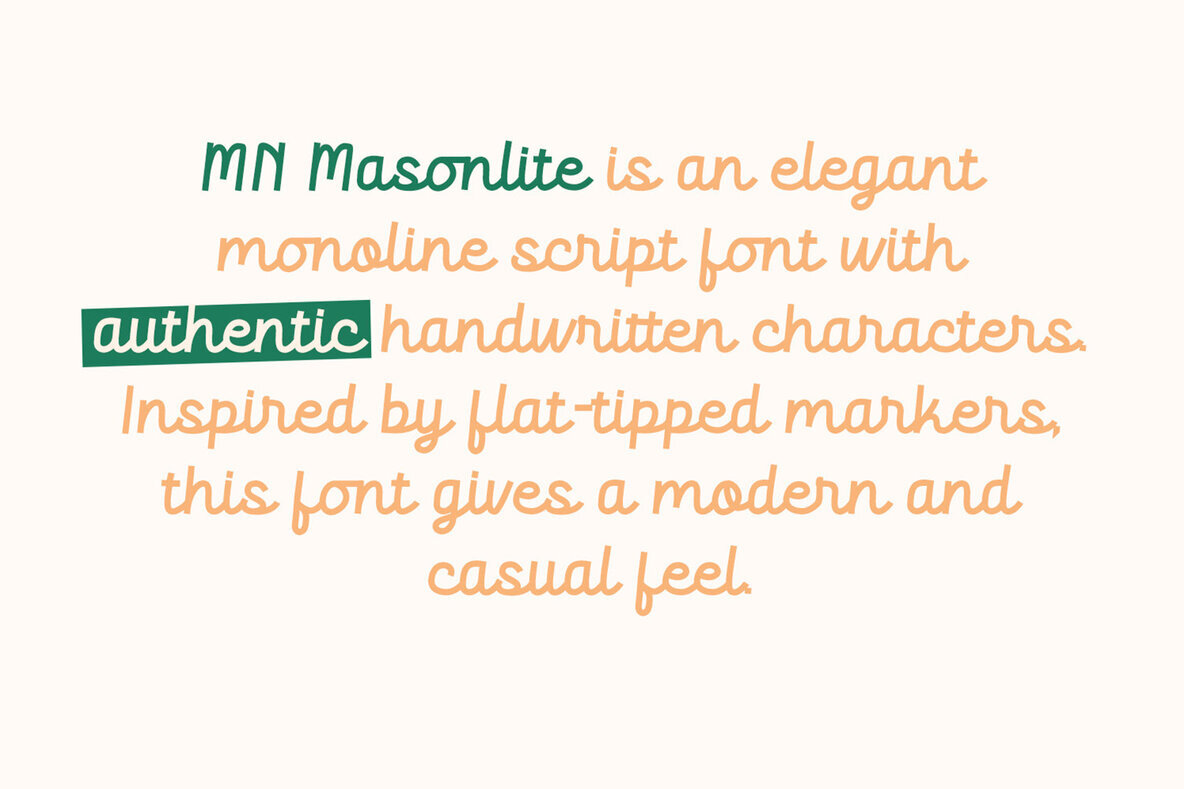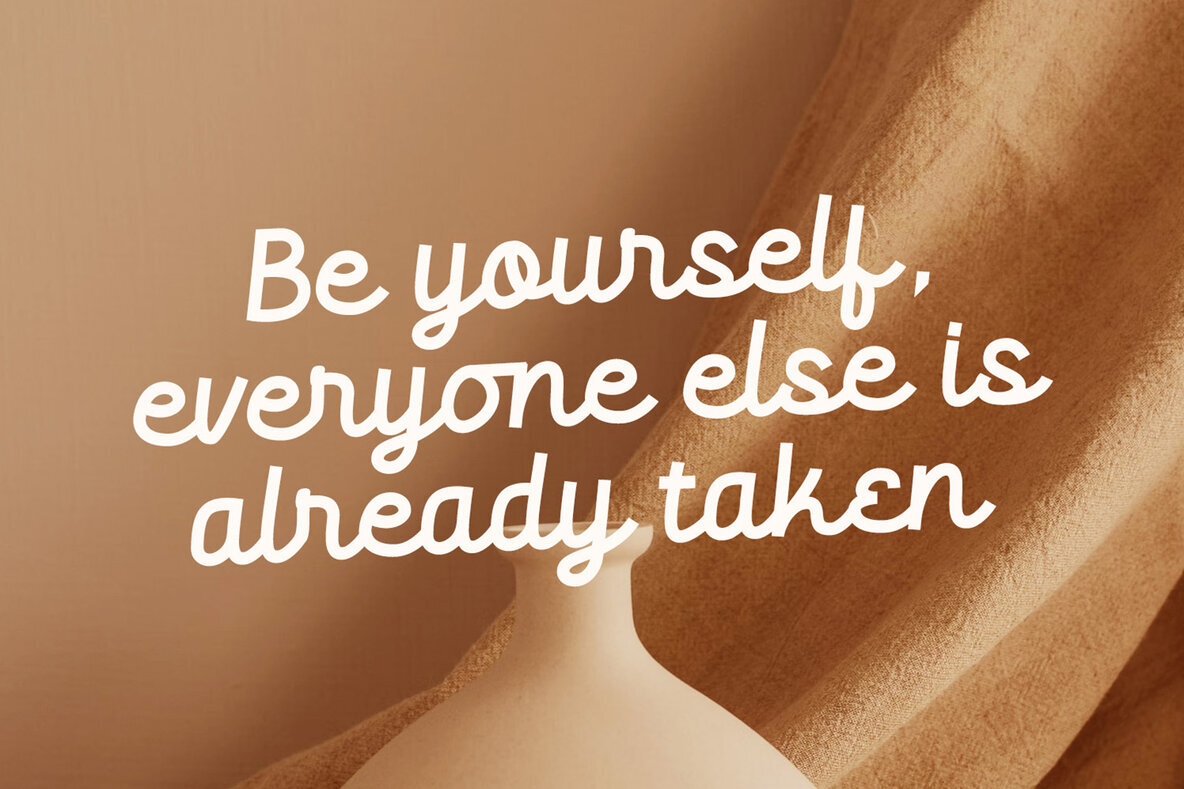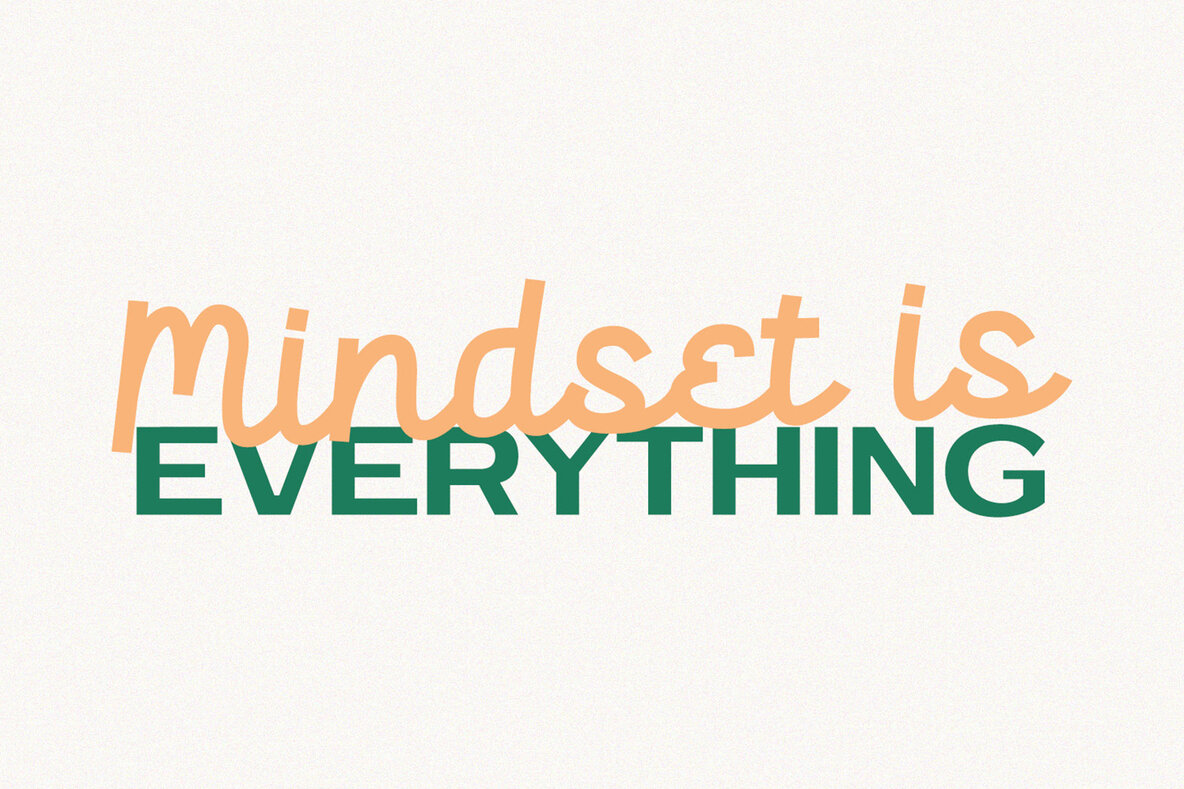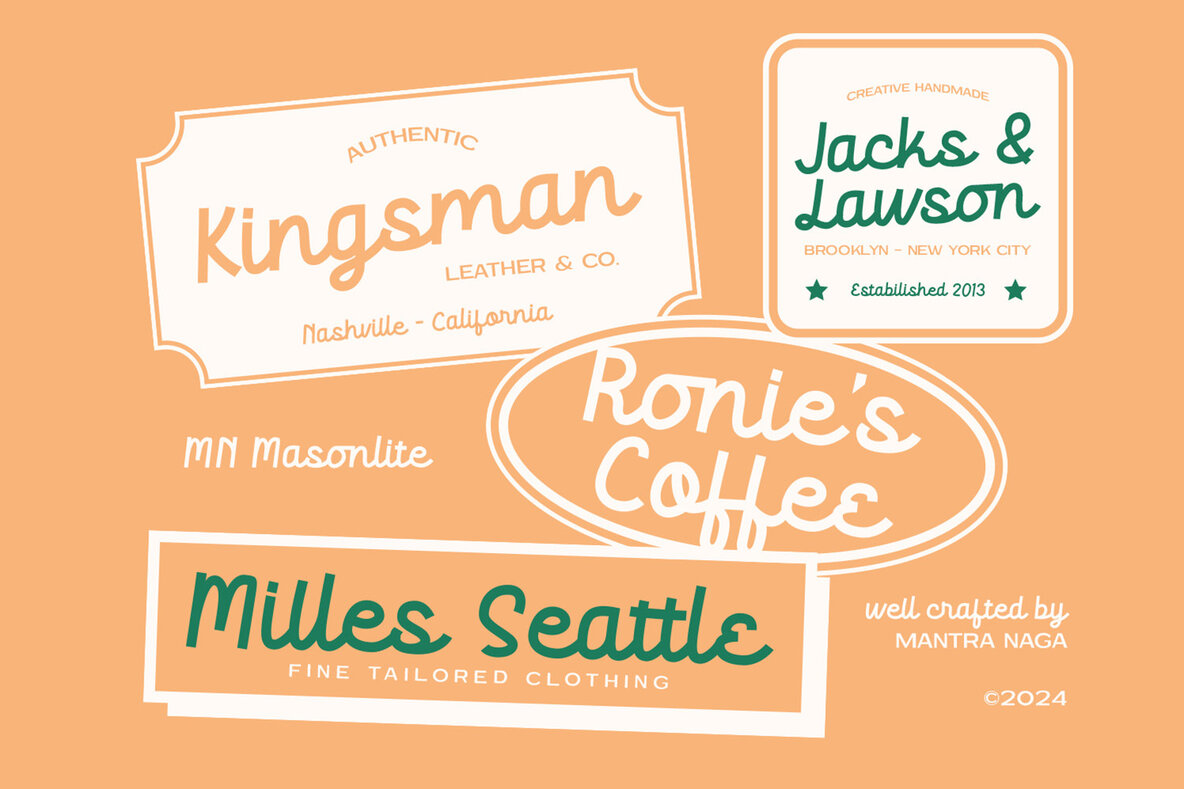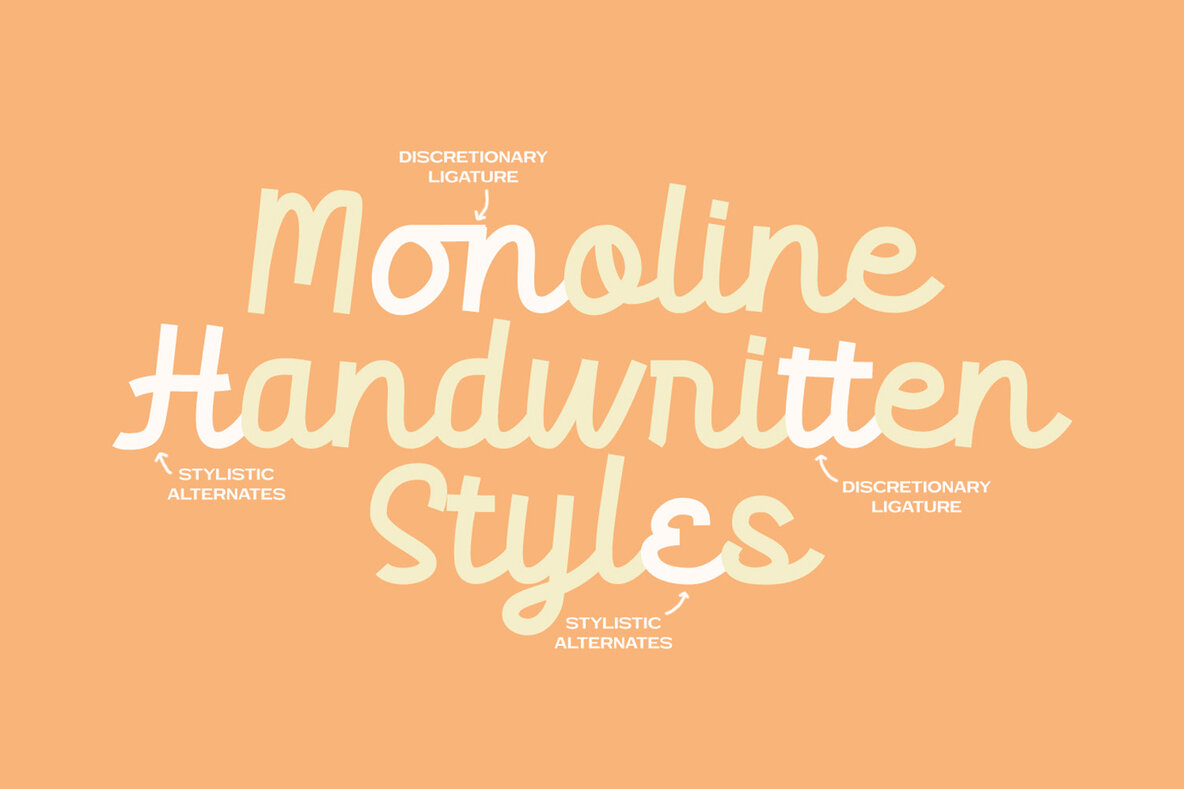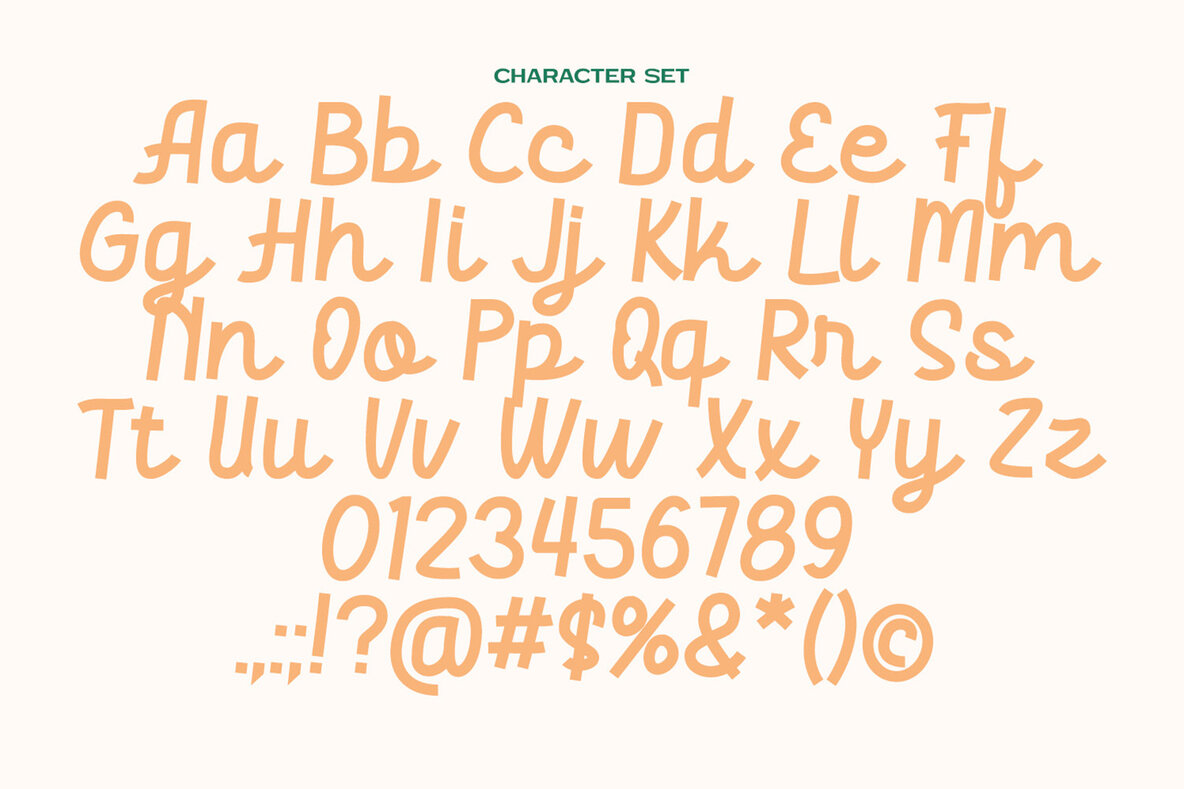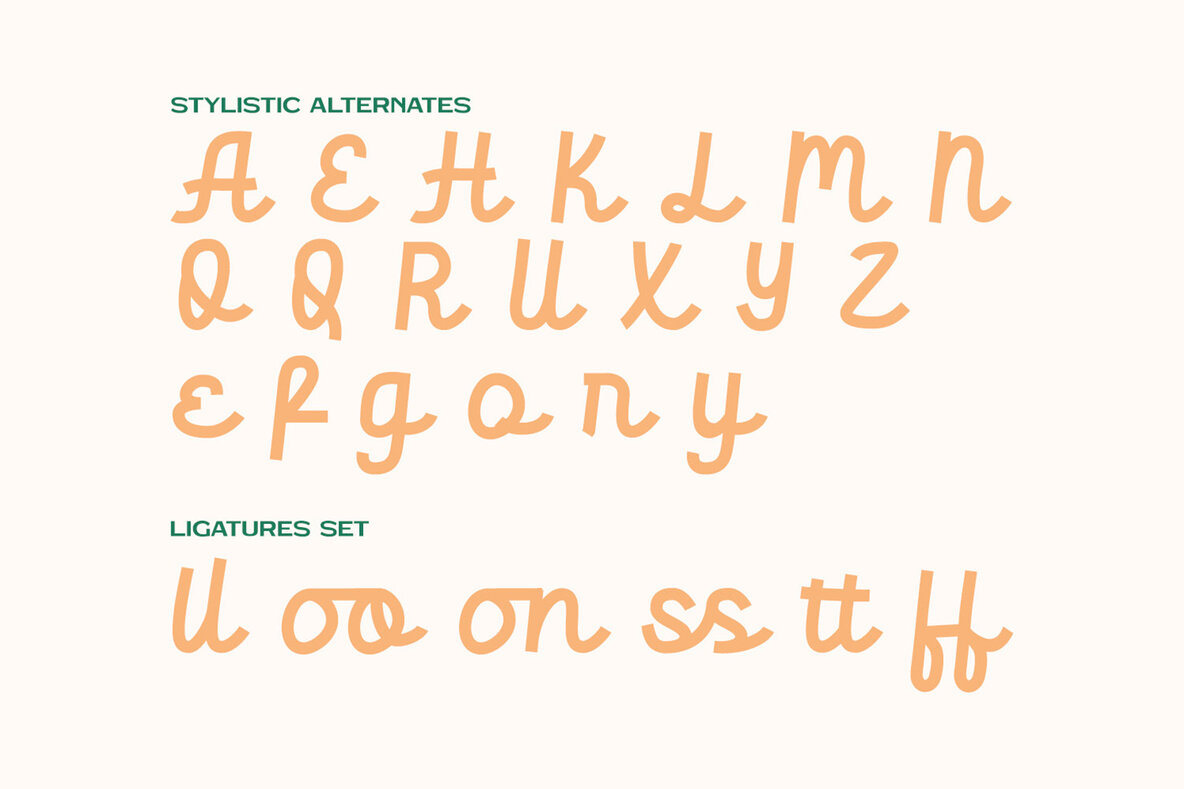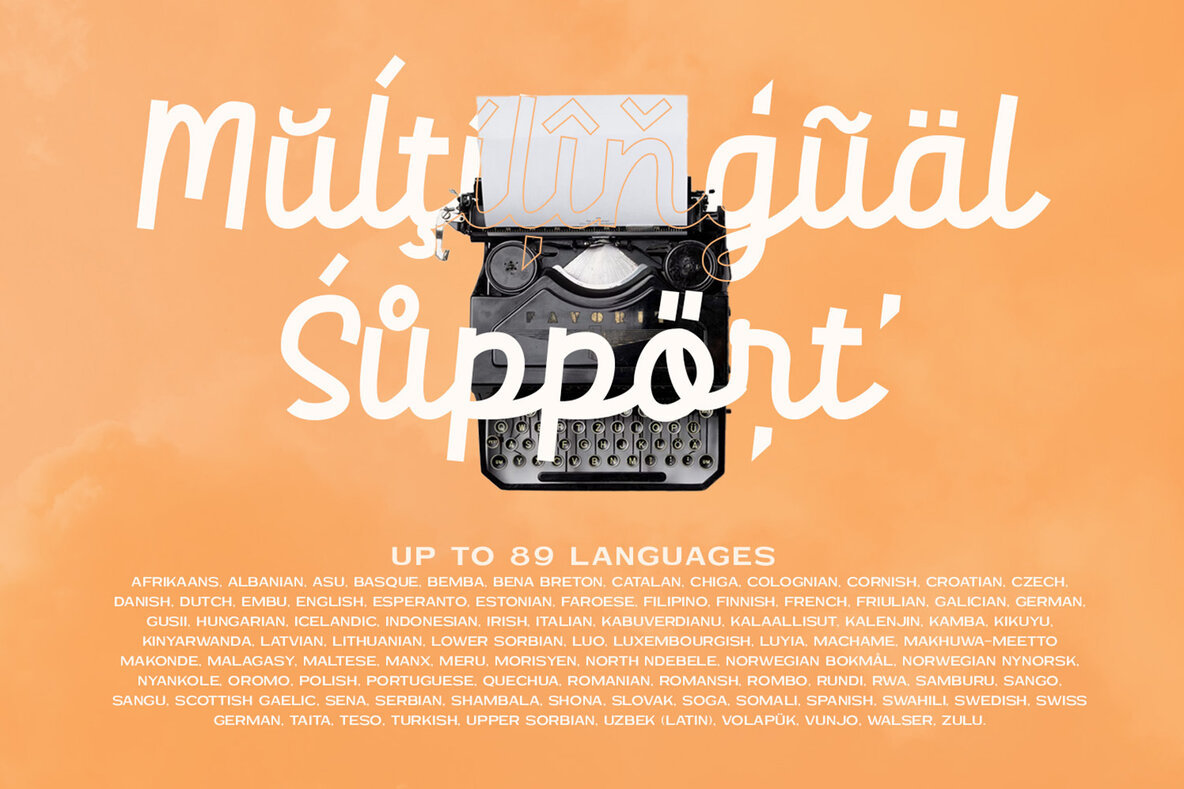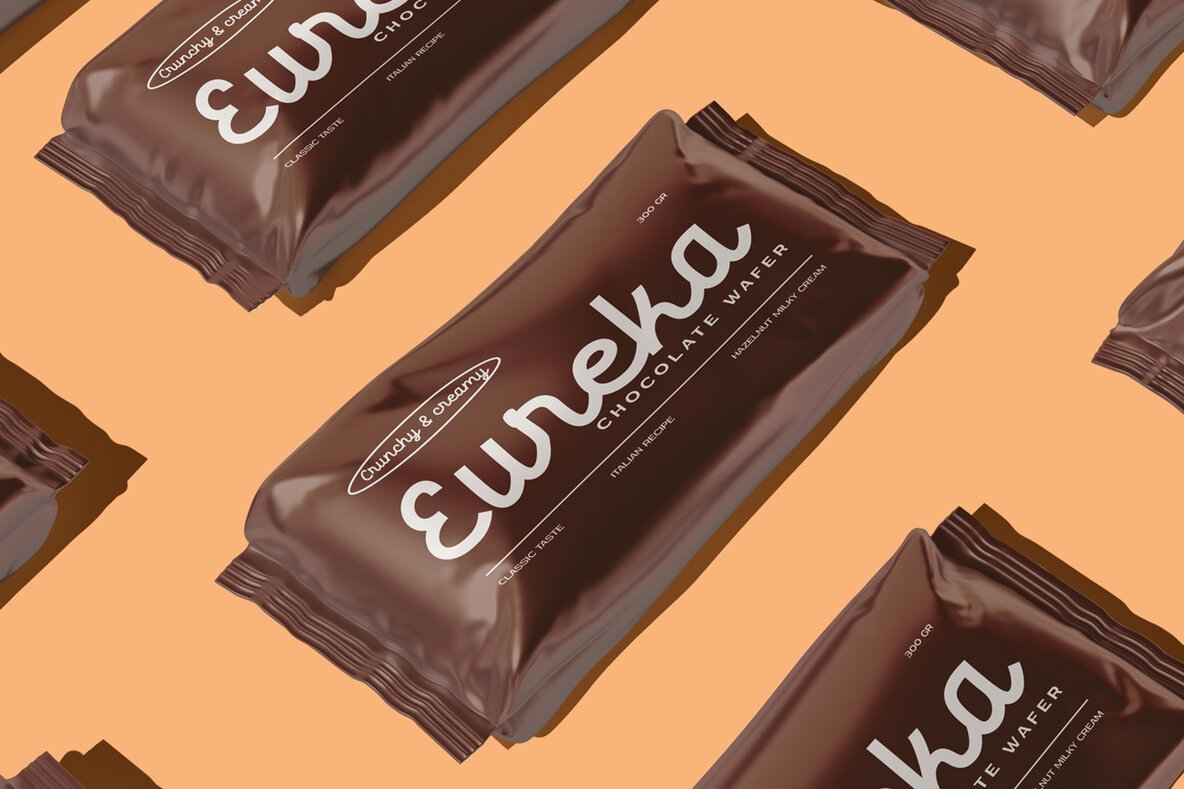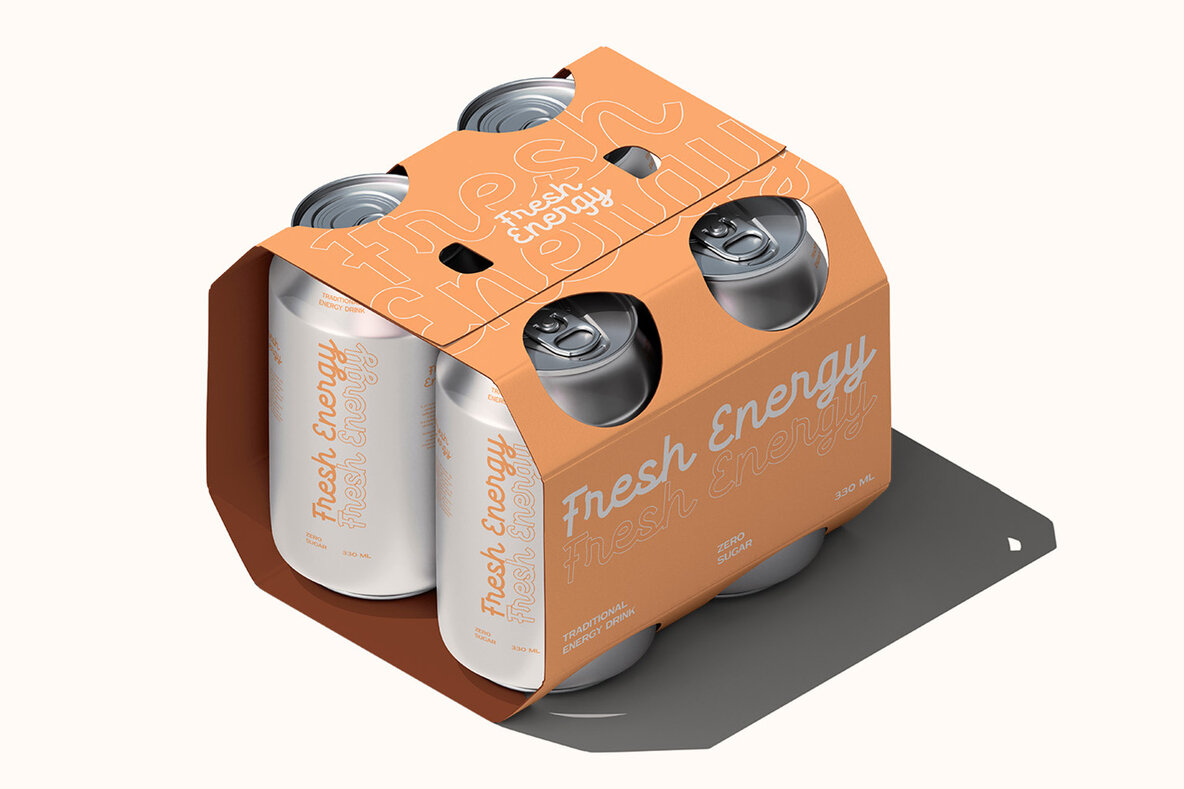
MN Masonlite Font
MN Masonlite Regular
MN Masonlite is a stylish monoline handwritten script font that captures the beauty of authentic handwritten characters. Drawing inspiration from flat-tipped markers, this font offers a modern and casual appeal, perfect for a wide range of creative projects. Whether you're designing for branding, invitations, social media, or logos, MN Masonlite brings a personal and elegant touch to your work. Its clean, flowing lines make it easy to read while adding a touch of sophistication. Elevate your design with the effortless charm of MN Masonlite today!